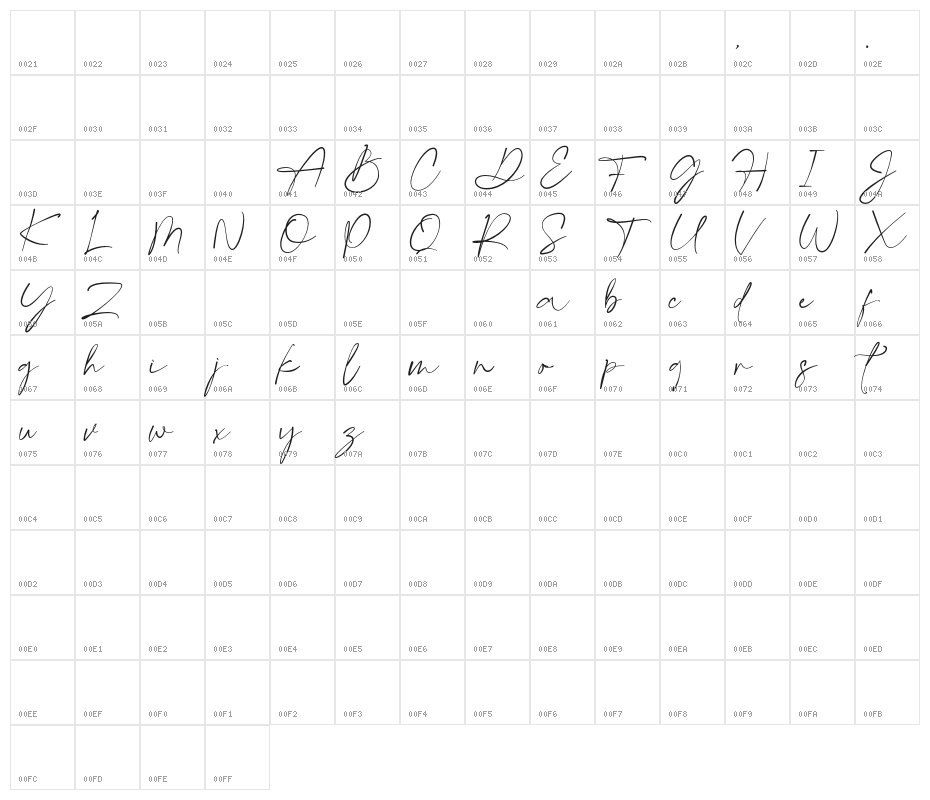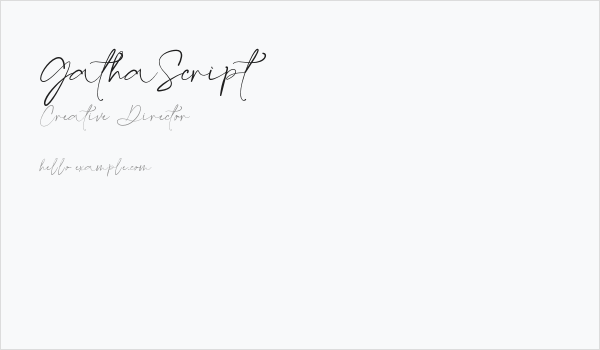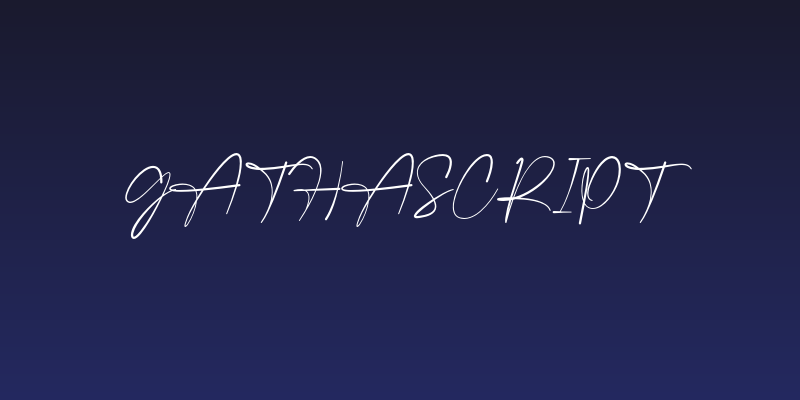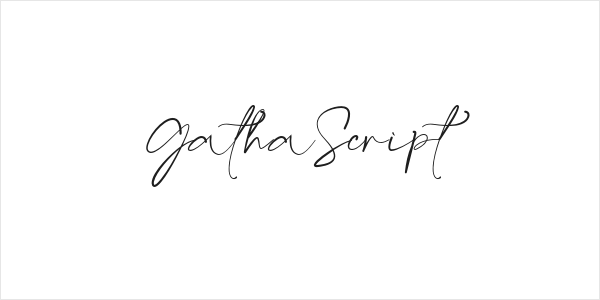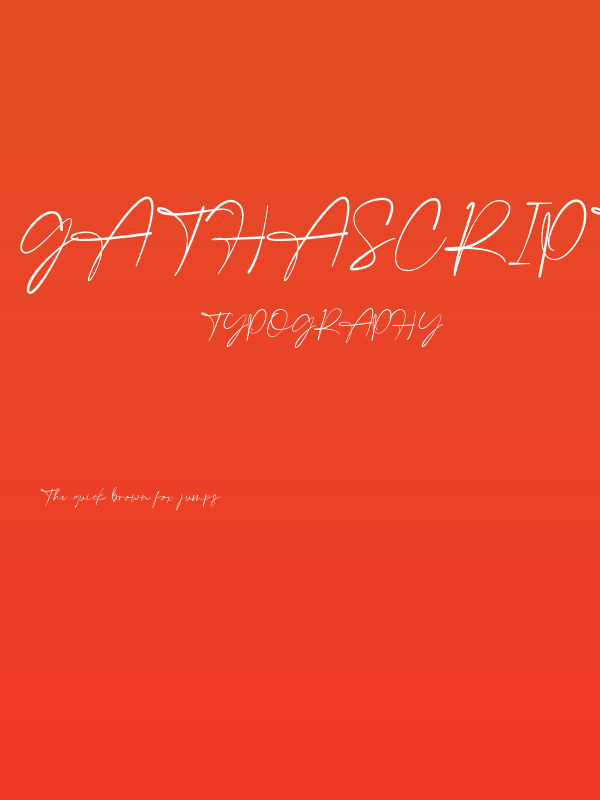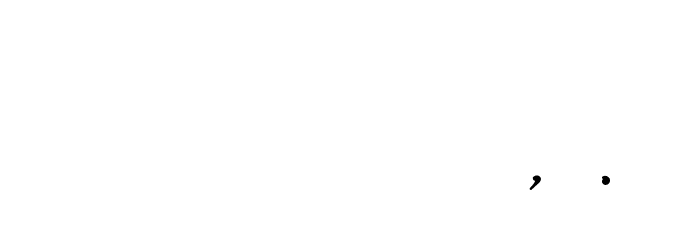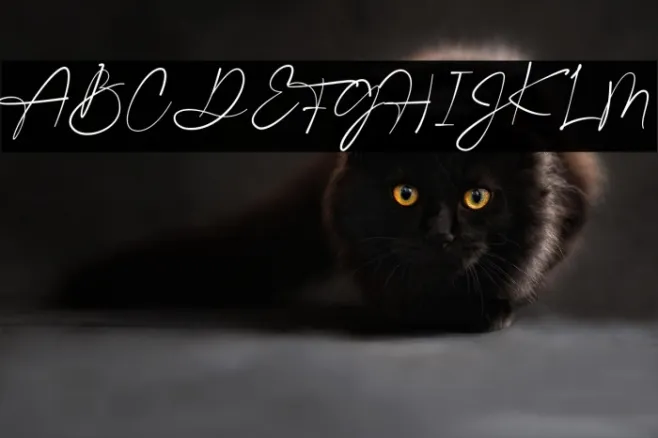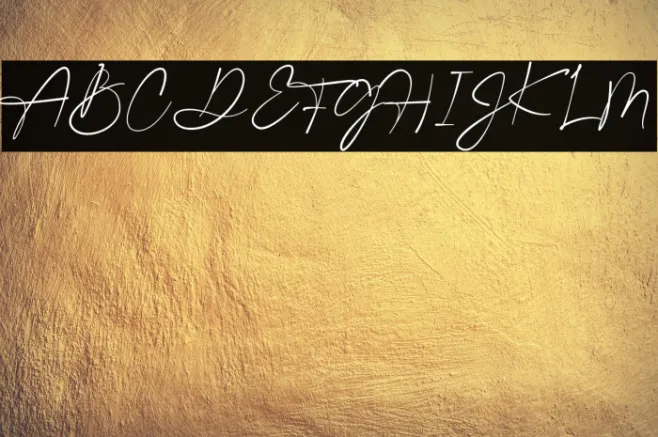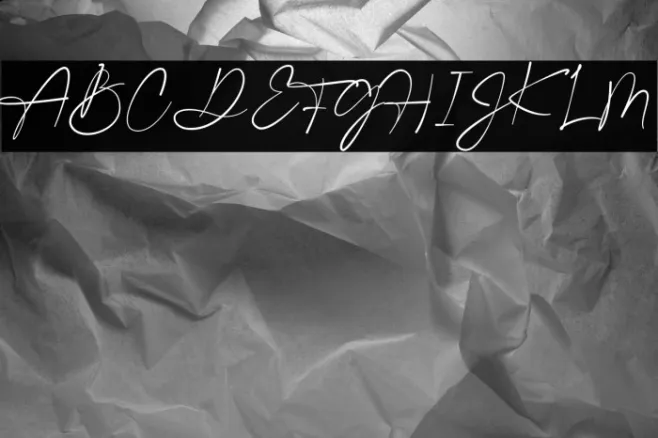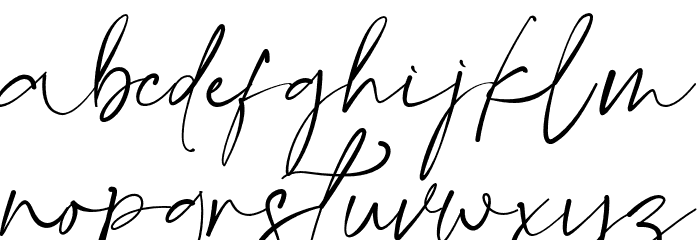
GathaScript Font
GathaScript Description
This font exudes a sophisticated and elegant script style, characterized by its fluid, cursive strokes and graceful curves. The uppercase letters are tall and slender, with a slight slant that adds a dynamic flow to the text. The lowercase letters are more varied in height, with some letters extending below the baseline, creating a harmonious balance. The overall appearance is both artistic and refined, making it suitable for formal invitations, branding, and other creative projects. The font's unique personality is enhanced by its handwritten quality, giving it a personal touch that stands out.